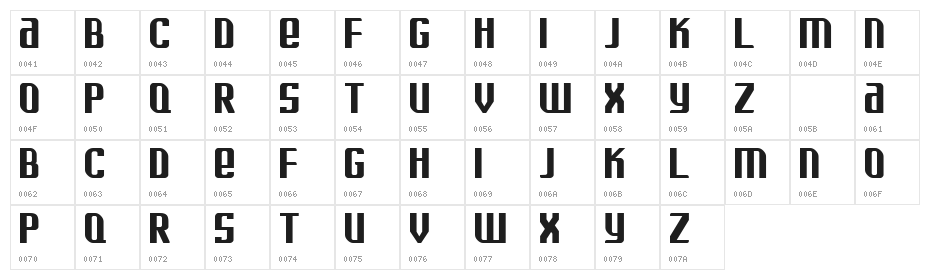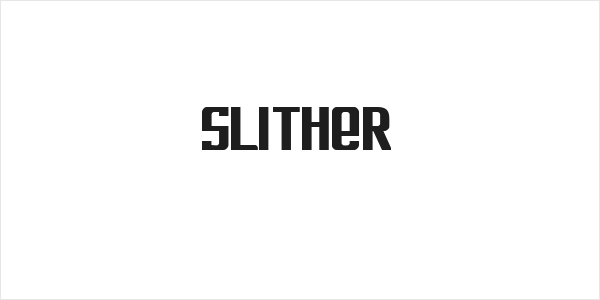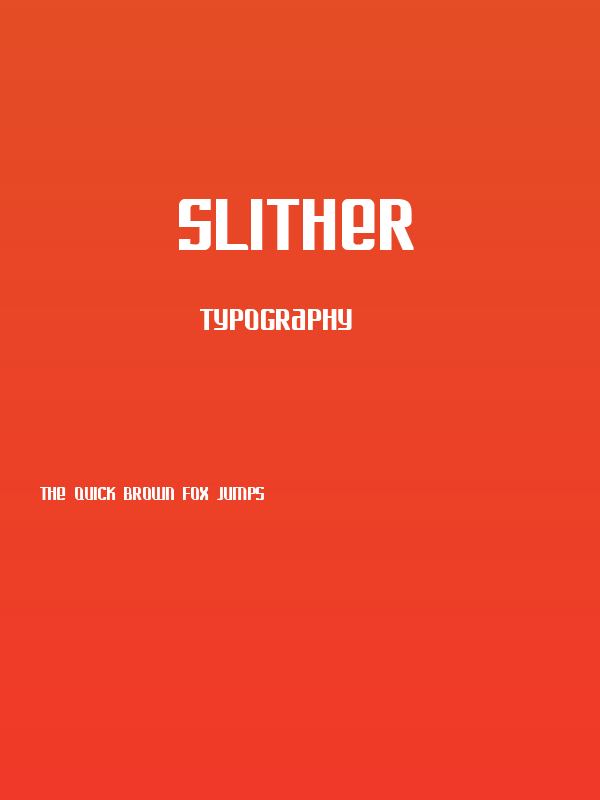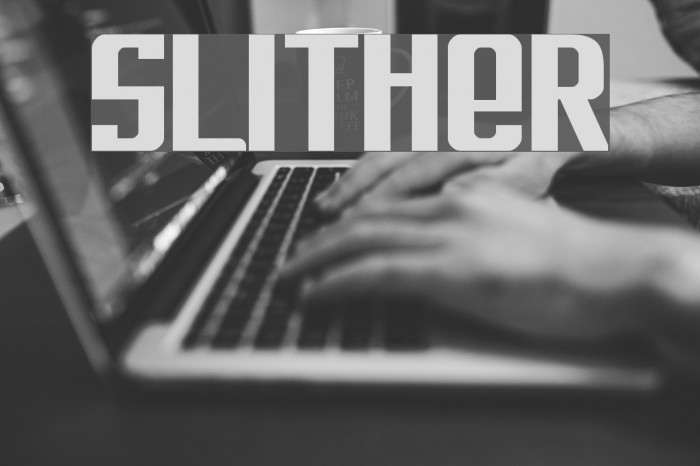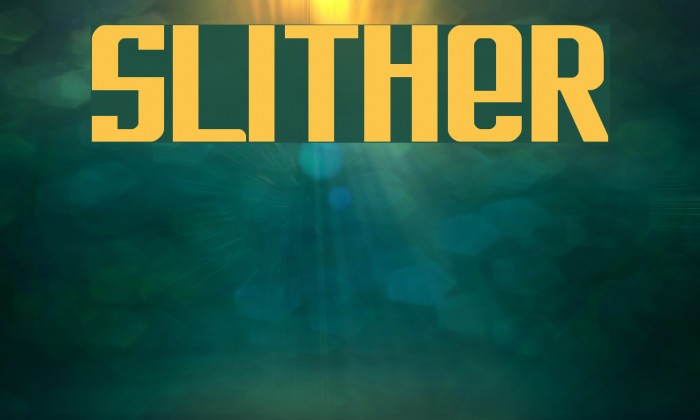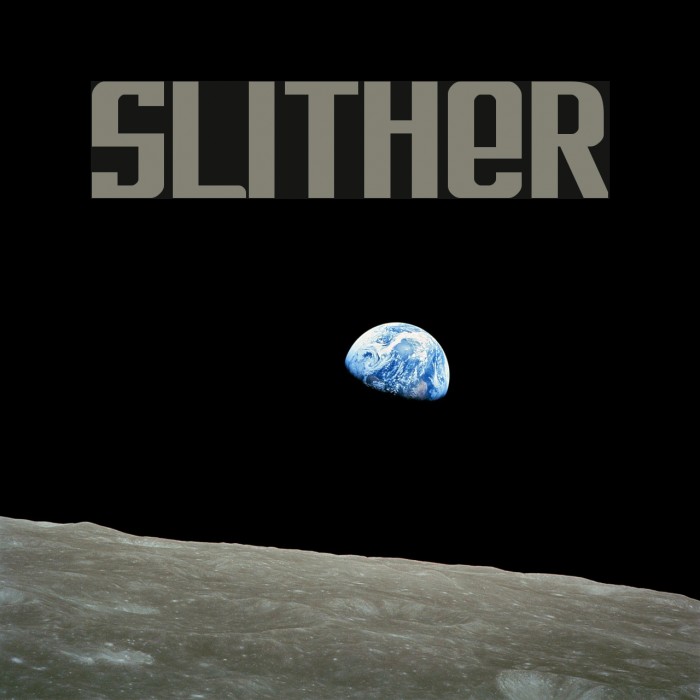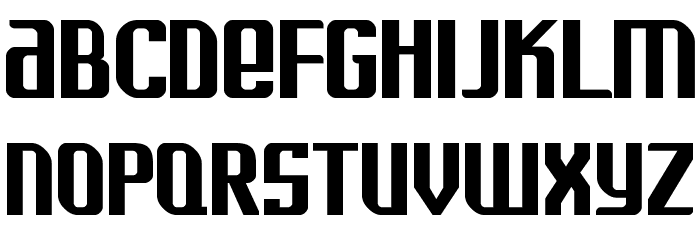
Slither Font
Slither Description
This font features a bold, geometric style with a modern twist. The characters are constructed with thick, uniform strokes, giving them a strong and impactful presence. The design incorporates sharp angles and straight lines, creating a sense of precision and order. The uppercase and lowercase letters maintain a consistent height, enhancing the uniformity of the typeface. The numbers and special characters are designed to match the boldness and geometric nature of the letters, ensuring a cohesive look across all elements. This font is ideal for projects that require a contemporary and assertive aesthetic.
| Proposed Projects | Ideal for branding, headlines, posters, and digital media that require a strong visual impact. |